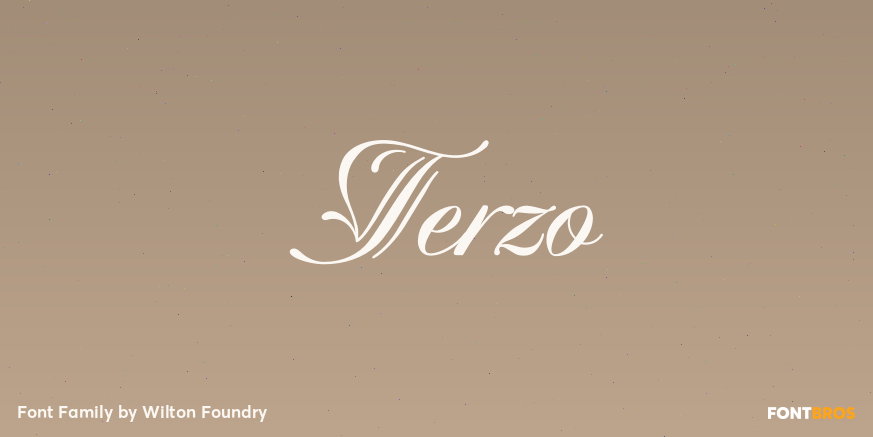
Terzo
About Terzo
Terzo uses three lines in the main stem of the capitals resulting in an interesting display of script capitals. Flourishes are uniquely positioned and are deliberately minimalist in order to feature the three part stem capitals. Lowercase characters are…